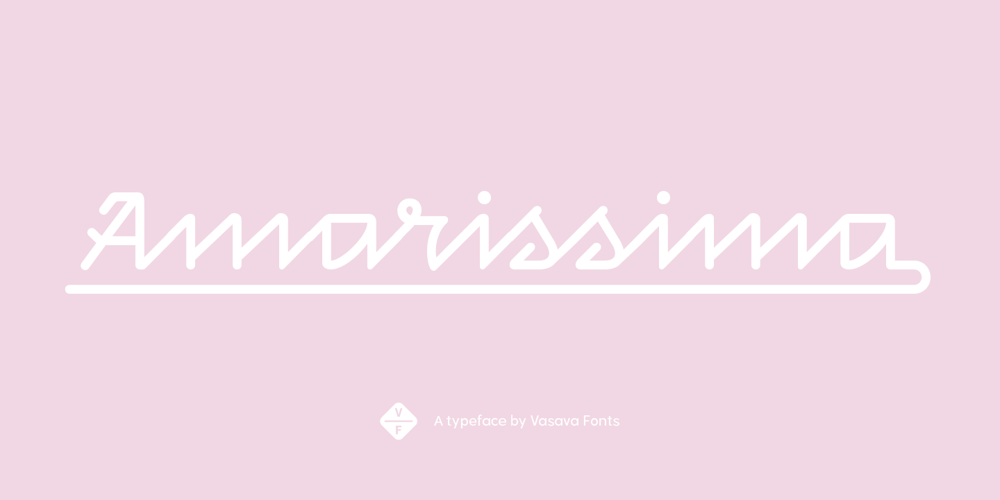
Amarissima Font Family was designed by Bruno Sellés and published by Vasava Fonts. Amarissima contains 2 styles and family package options. Amarissima is a display font inspired in vintage Italian signs of baker shops. Regardless its crafty inspiration, the construction remains highly mechanical and structured. It has several OT features being the most iconic its contextual alternates that automatically create tails on every single word.